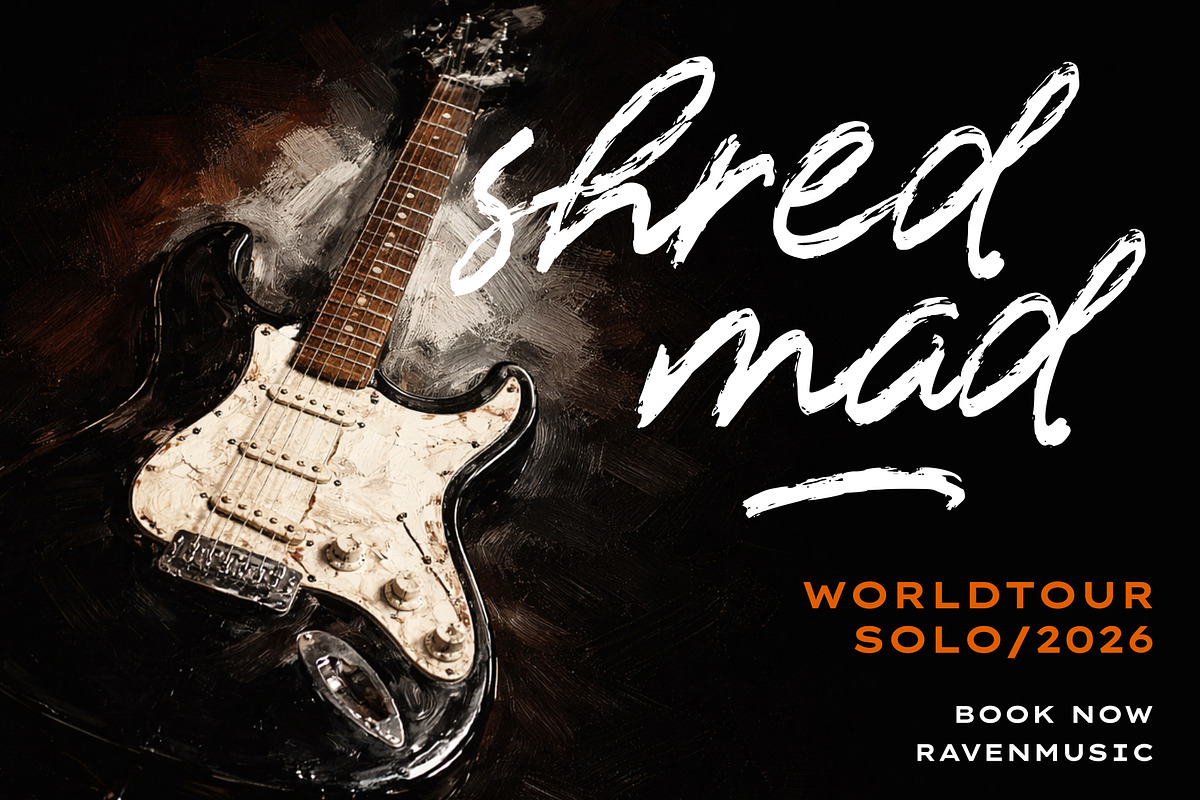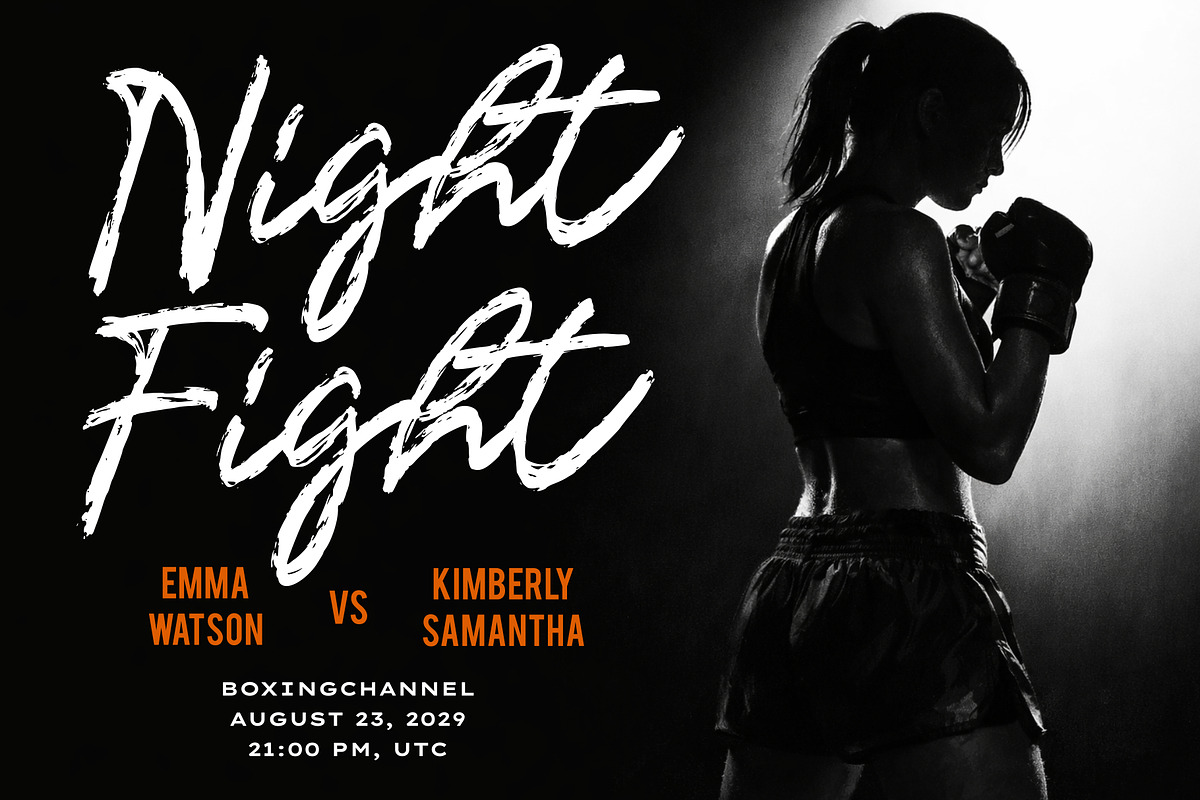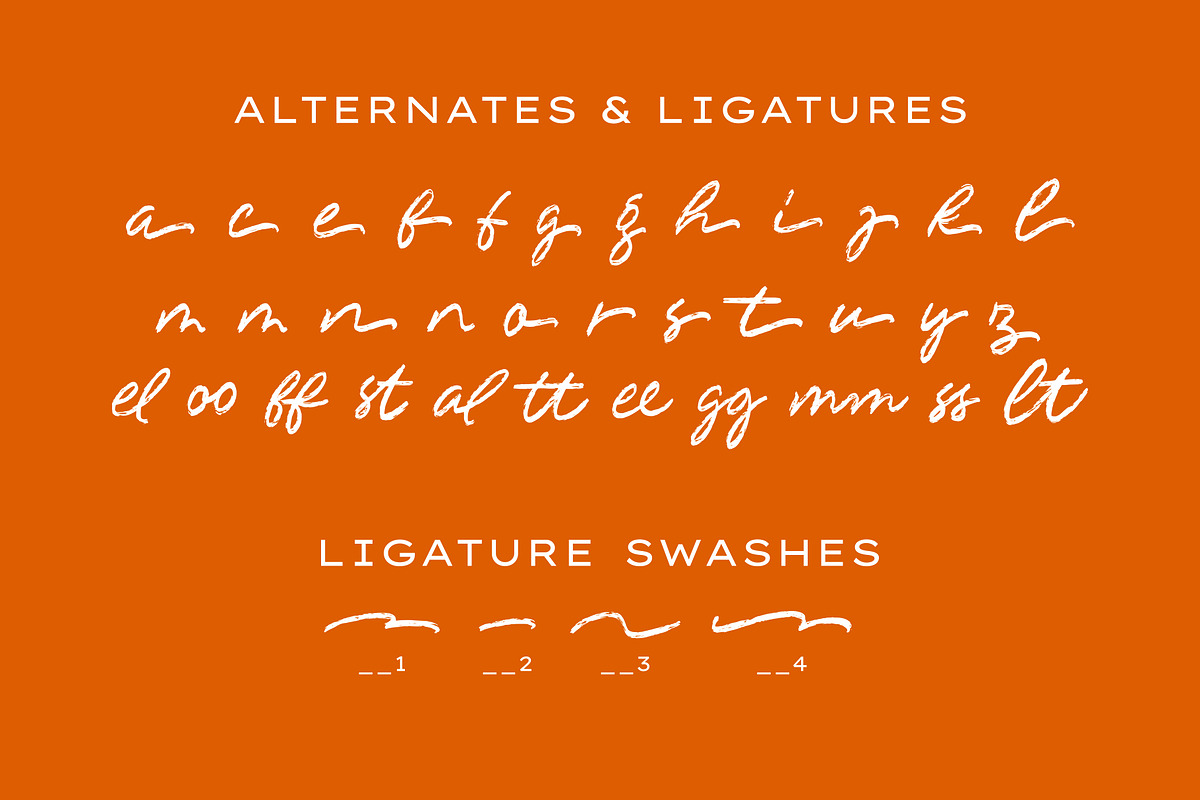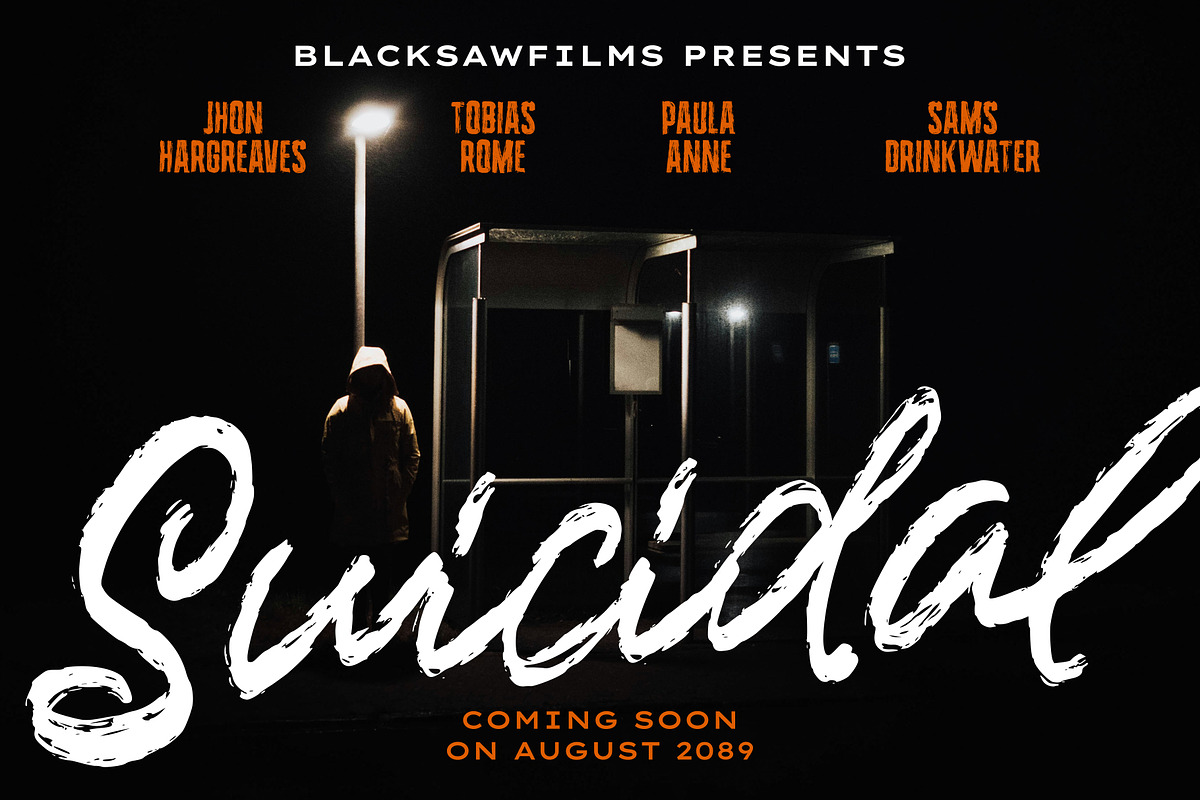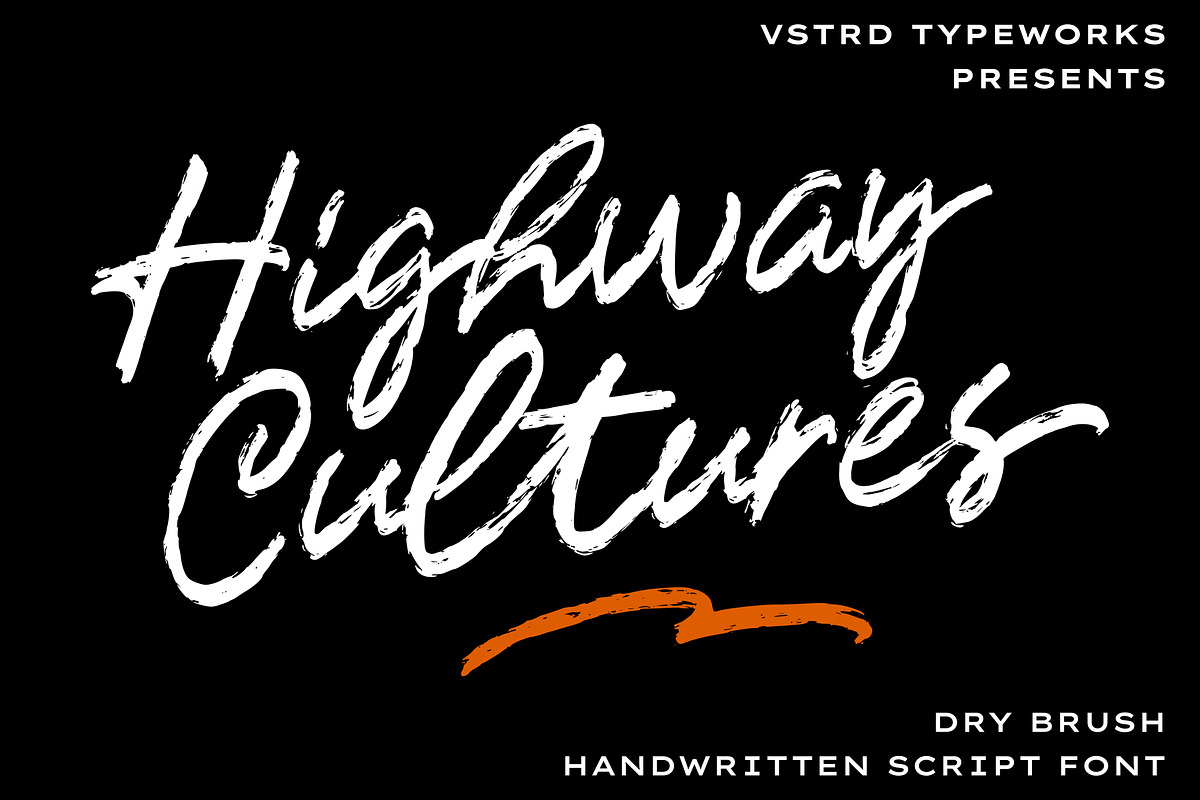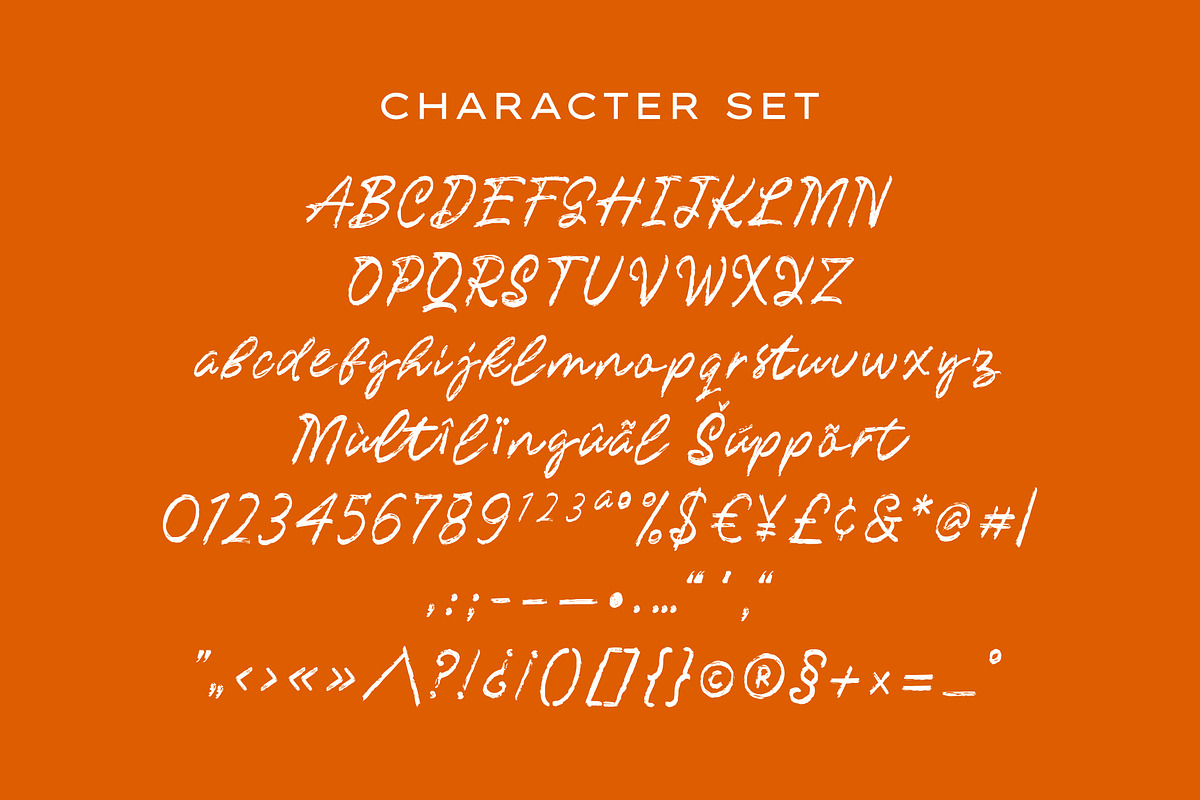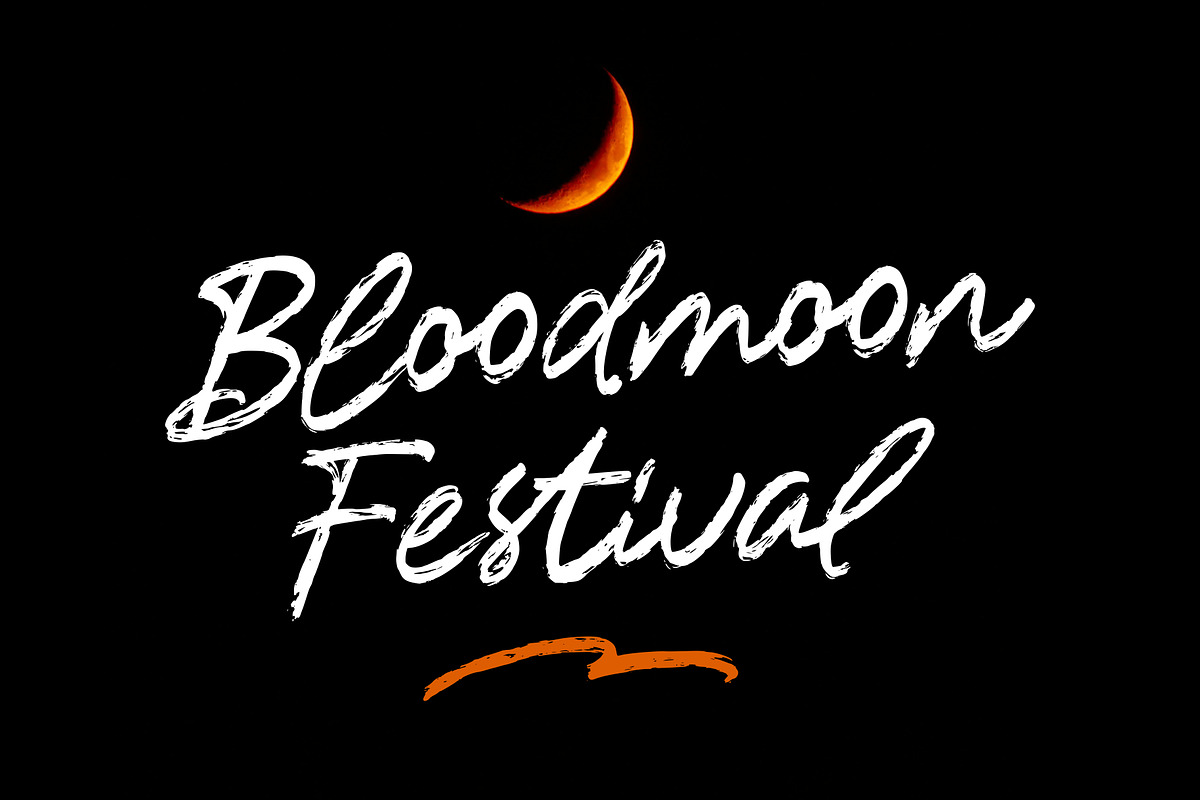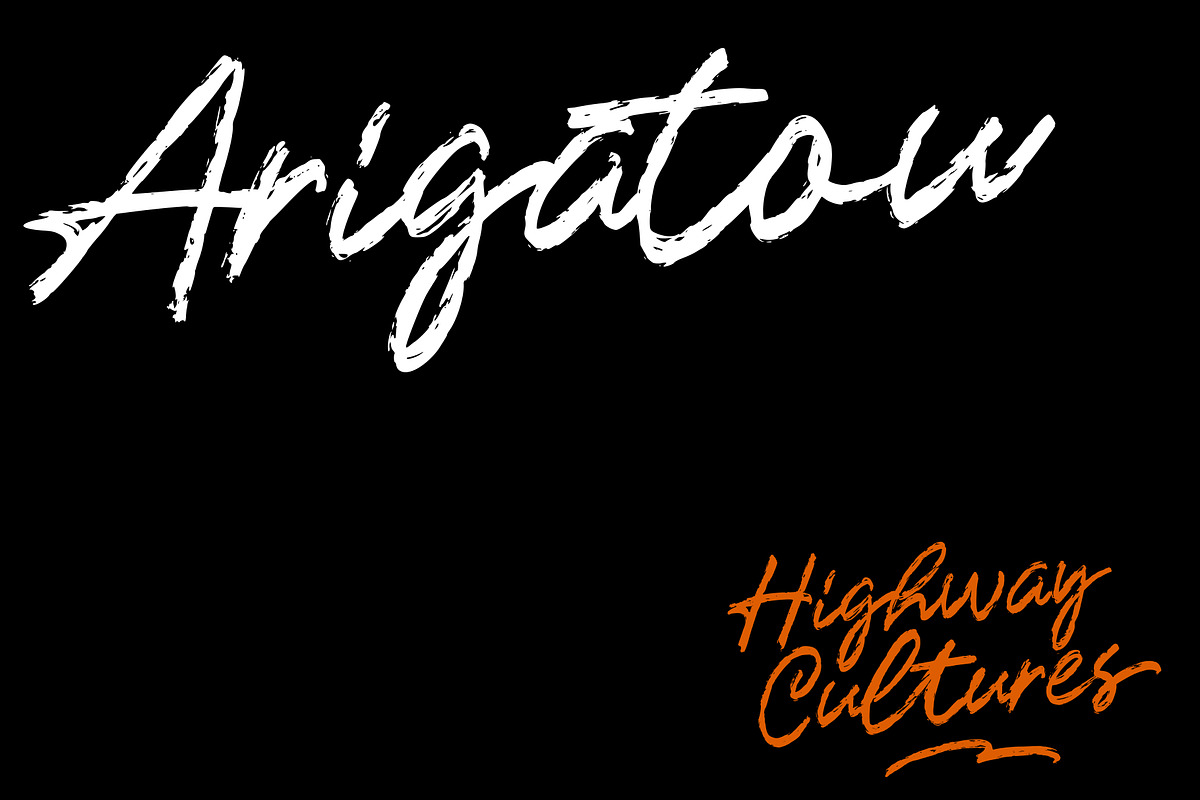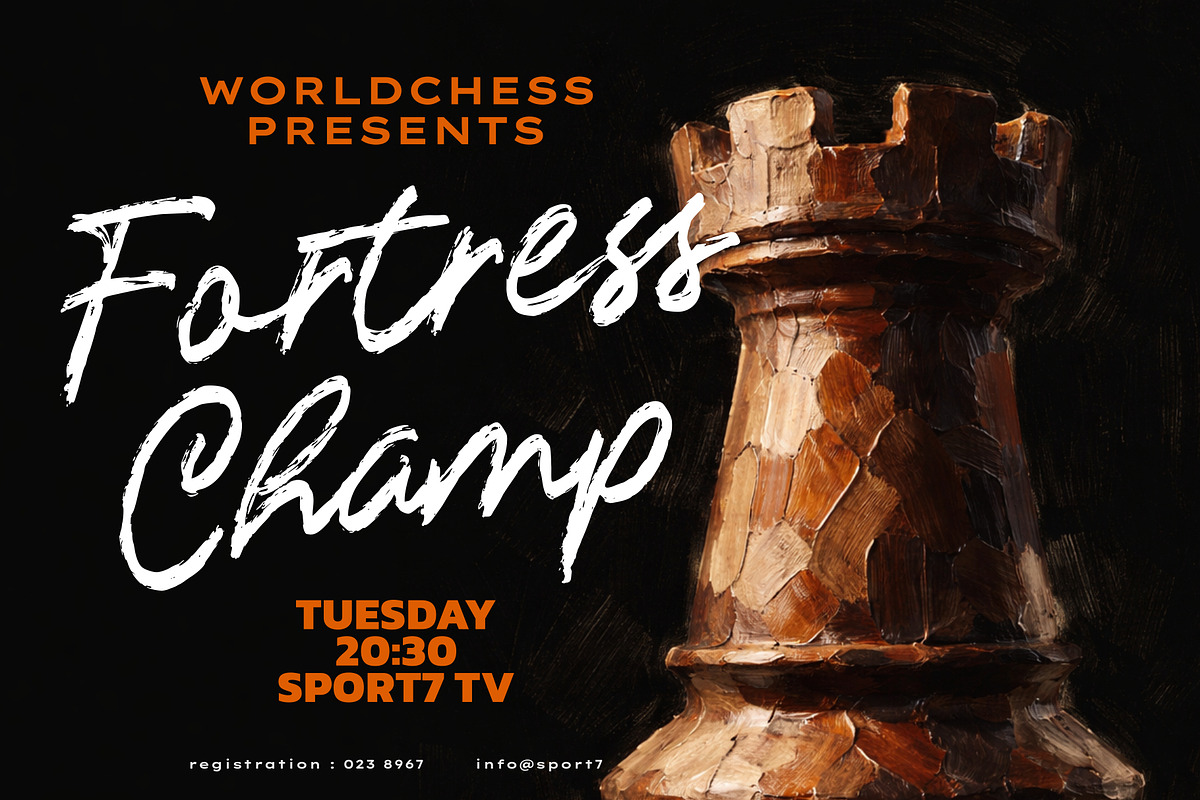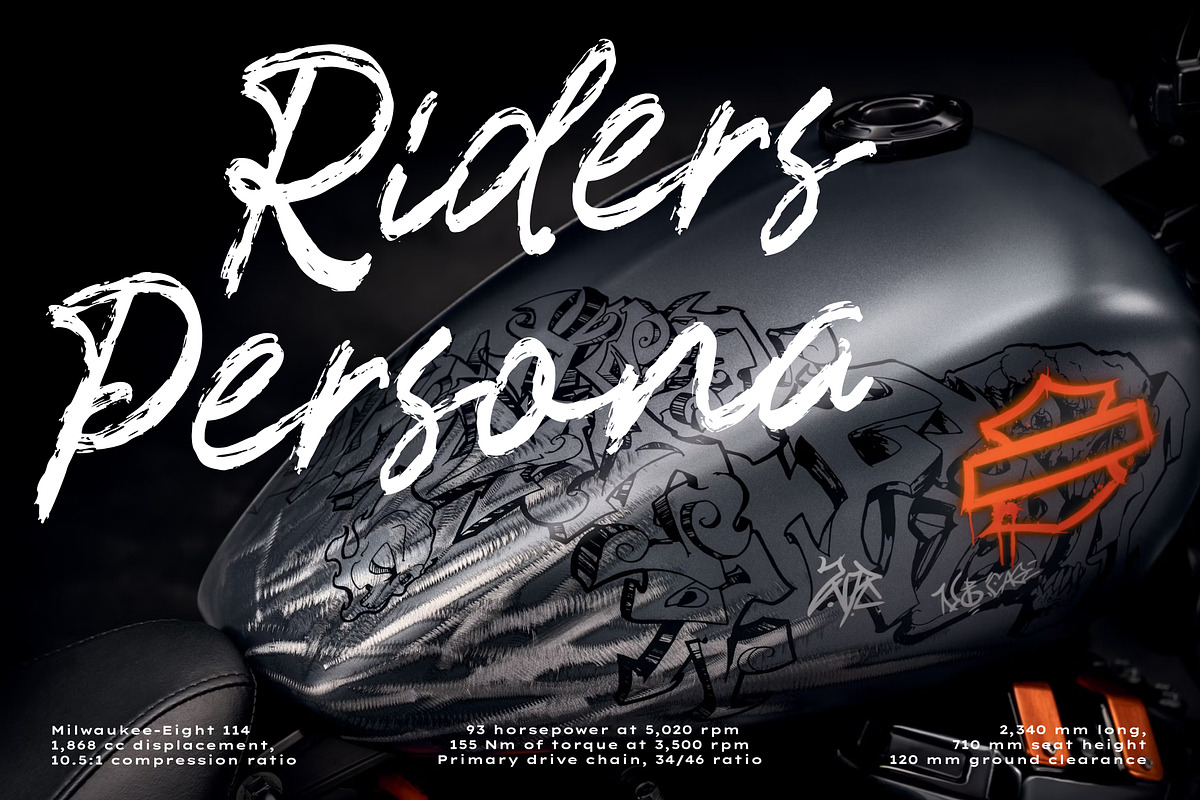
Highway Cultures - Dry Brush Script
Highway Cultures is a rough, expressive dry brush script built with attitude. Inspired by underground gigs, street rides, and midnight posters, every stroke carries texture, movement, and unapologetic character. With its raw brush details and natural flow, this font is perfect for music covers, movie titles, event posters, streetwear branding, and bold editorial headlines. Loud. Rebellious. Authentic. Highway Cultures doesn’t whisper it roars.